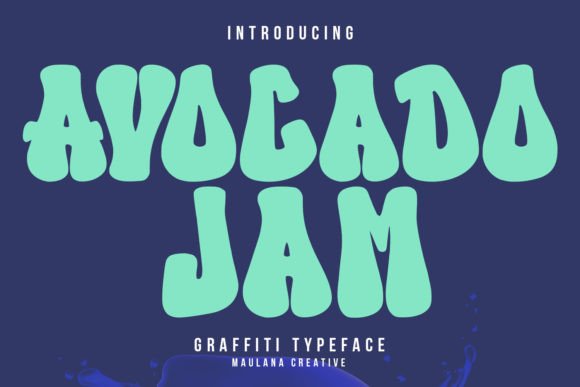
Introducing Avocado Jam Font: The Perfect Choice for Playful and Creative Designs
Are you looking for a font that can add a touch of playfulness and authenticity to your designs? Look no further than Avocado Jam Font! This cute and colorful display font is perfect for any children activity or school project, and is sure to make your designs come alive.
What is Avocado Jam Font?
Avocado Jam Font is a unique and creative display font that is designed to bring a sense of fun and playfulness to your designs. With its chunky lettered style, this font is perfect for creating eye-catching and engaging designs that are sure to capture the attention of your audience.
Whether you’re working on a children’s activity book, a school project, or any other type of design that requires a playful touch, Avocado Jam Font is the perfect choice. Its bold and colorful style is sure to add a level of excitement and energy to your designs, making them stand out from the crowd.
Key Features of Avocado Jam Font
So what makes Avocado Jam Font so special? Here are just a few of its key features:
- Cute and Colorful Design: Avocado Jam Font features a unique and colorful design that is sure to add a touch of playfulness to your designs.
- Chunky Lettered Style: The chunky lettered style of Avocado Jam Font makes it perfect for creating eye-catching and engaging designs.
- Playful and Authentic: Avocado Jam Font embodies playfulness and authenticity, making it perfect for any children activity or school project.
- Easy to Read: Despite its bold and chunky style, Avocado Jam Font is easy to read and understand, making it perfect for designs that require a clear and concise message.
Uses for Avocado Jam Font
So what can you use Avocado Jam Font for? The possibilities are endless! Here are just a few ideas to get you started:
- Children’s Activity Books: Avocado Jam Font is perfect for children’s activity books, such as coloring books, puzzle books, and more.
- School Projects: Avocado Jam Font is also great for school projects, such as posters, presentations, and reports.
- Playful Posters: Use Avocado Jam Font to create playful and eye-catching posters for kids’ events, such as birthday parties, school events, and more.
- Social Media Graphics: Avocado Jam Font is also perfect for social media graphics, such as Facebook posts, Instagram stories, and more.
Tips and Tricks for Using Avocado Jam Font
Here are just a few tips and tricks for using Avocado Jam Font:
- Use it for Headings: Avocado Jam Font is perfect for headings and titles, so use it to add a touch of playfulness to your designs.
- Experiment with Colors: Avocado Jam Font comes in a range of colors, so experiment with different colors to find the one that works best for your design.
- Pair it with Other Fonts: Avocado Jam Font pairs well with other fonts, so try pairing it with a sans-serif font for a fun and playful look.
In conclusion, Avocado Jam Font is a unique and creative display font that is perfect for any children activity or school project. With its cute and colorful design, chunky lettered style, and playful and authentic feel, Avocado Jam Font is sure to add a touch of excitement and energy to your designs.